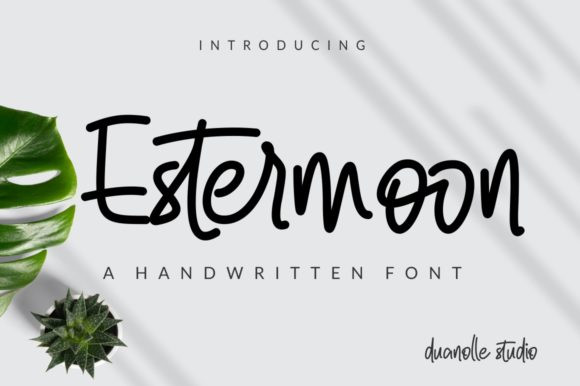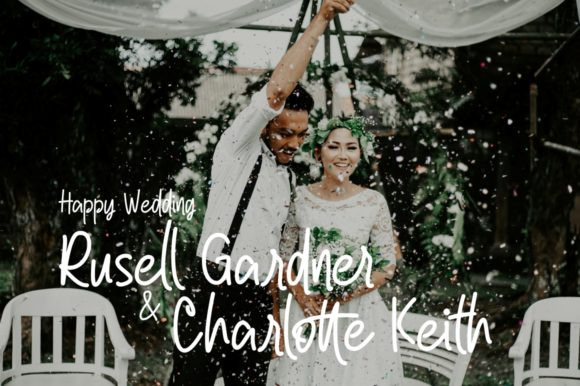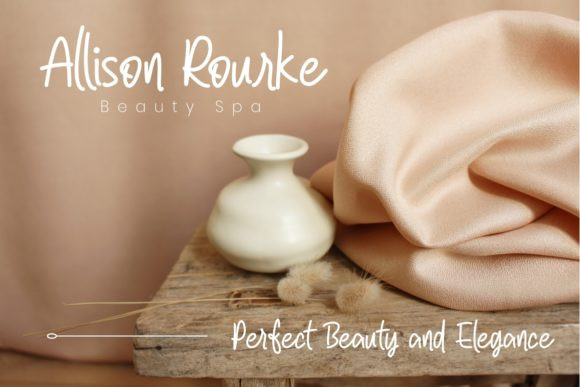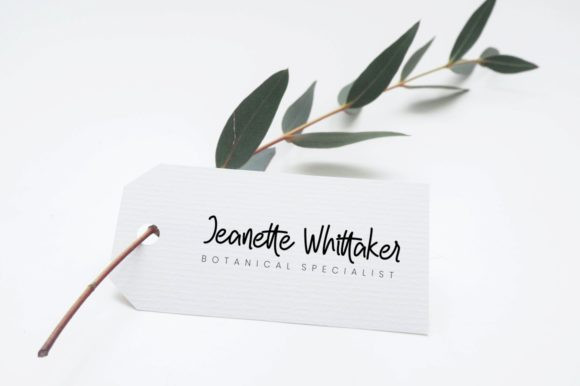
Estermoon Font
Estermoon is a relaxed and timeless handwritten font. Masterfully designed to become a true favorite, this font has the potential to bring each of your creative ideas to the highest level!